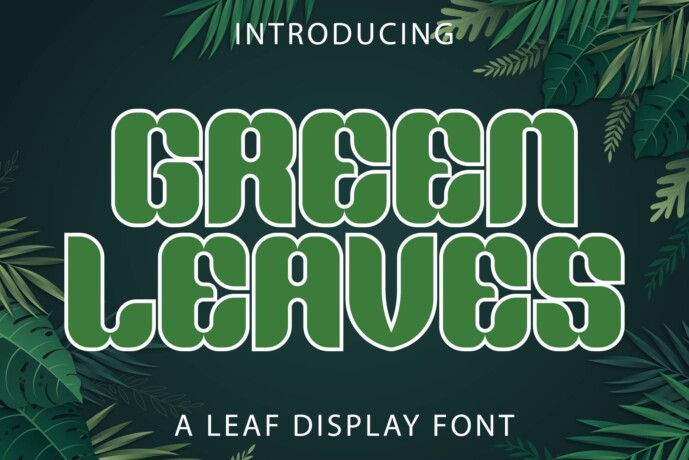
Green Leaves Font
Designer: Kido Studio
Green Leaves is a versatile, stylish, groovy, and playful retro display font, perfect for a wide spectrum of applications such as greeting cards, headlines, and more! Add it to any of your creative projects, and it will make them stand out from the crowd!